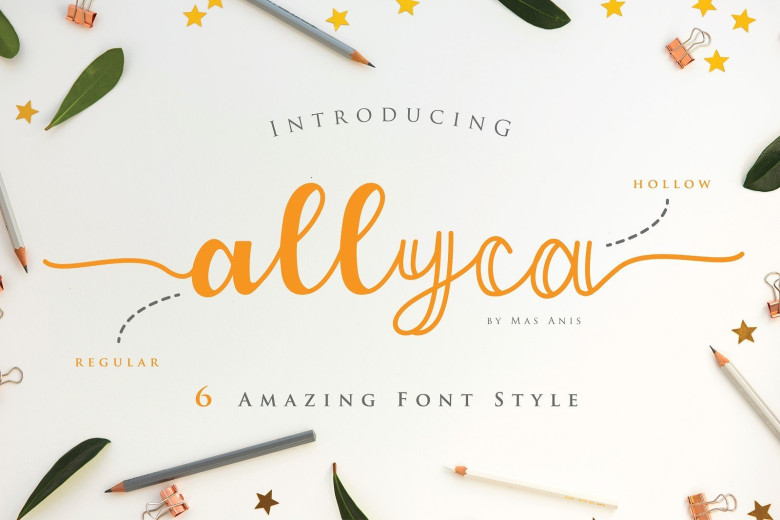
Allyca Font Family
Introducing Allyca. Allyca is a font family with 6 amazing font styles. Allyca is a new fresh & modern script with a handmade calligraphy style and decorative characters. Allyca Font Family come with total 2130+ glyphs. With stylistic alternate, contextual alternate, and ligature. And the font has given PUA unicode (specially coded fonts). so that all the alternate characters can be accessed in full by a craftsman or designer.